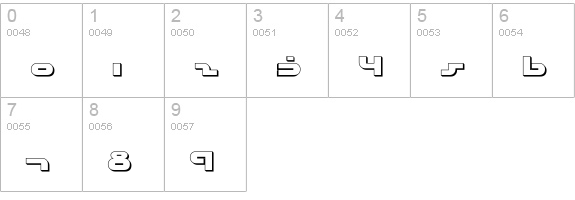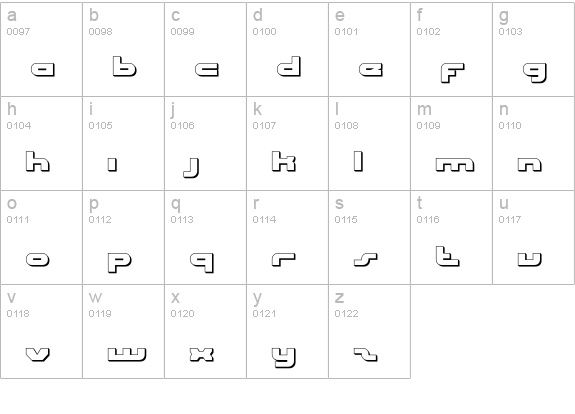
uni-sol outline Font Details
Uni-Sol Outline Font is a stunning typeface that combines modern aesthetics with classic charm. Its sleek and clean outlines make it perfect for a wide range of design projects, from branding and logo creation to posters and websites. This font is not only visually appealing, but it also offers a high level of versatility. Its bold strokes and elegant lines create a striking effect, making it stand out on any medium. Uni-Sol Outline Font is designed with meticulous attention to detail, ensuring that each character is perfectly crafted. One of the best features of Uni-Sol Outline Font is that it is available for free download. This means that designers, artists, and enthusiasts can access this beautiful typeface without any cost. FontsMarket.com is proud to offer Uni-Sol Outline Font as a freely available resource to the creative community. Whether you are a professional designer looking for a unique font to elevate your projects or a casual user in search of a stylish typeface for personal use, Uni-Sol Outline Font is a fantastic choice. Its modern yet timeless design will add a touch of sophistication to any design, and its free availability makes it even more accessible to all. Download Uni-Sol Outline Font now at FontsMarket.com and unlock the potential of this remarkable typeface in your next creative endeavor. Experience the beauty and versatility of Uni-Sol Outline Font, and let your imagination soar as you bring your designs to life.